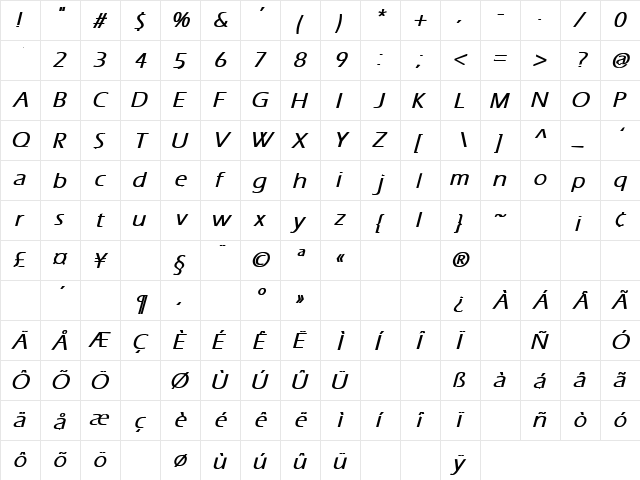
Presence 5 Bold Italic
Design Context for Presence 5 Typeface
Presence 5 offers clean, dependable letterforms without strong stylistic allegiance, making it a practical choice for designers who need flexibility. The dynamic lean of this cut emphasises speed and emphasis in any layout. The heavy weight commands attention and anchors typographic hierarchies.